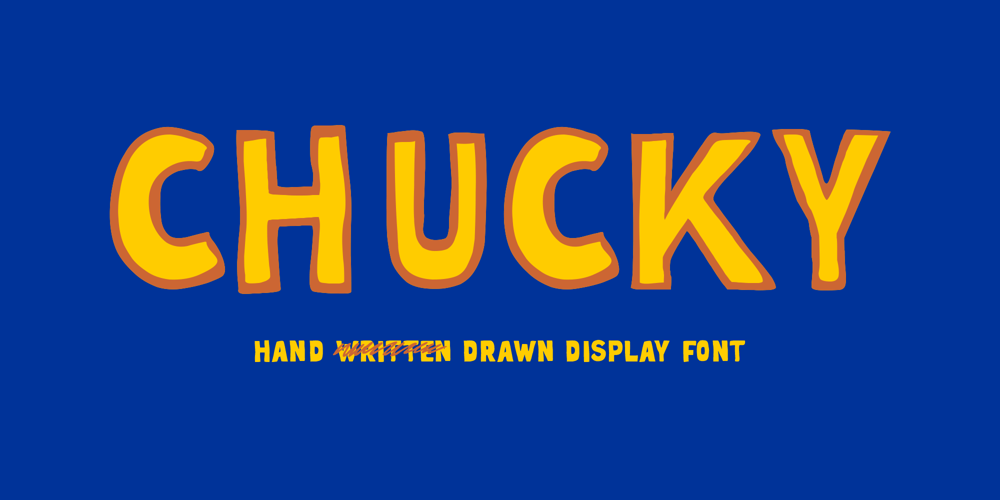
Chucky Font Family was designed by Muhammad Jauhar Azmi and published by Brainware Graphic. Chucky contains 2 styles and family package options. Chucky is hand drawn display font with layered system between solid and outline layers